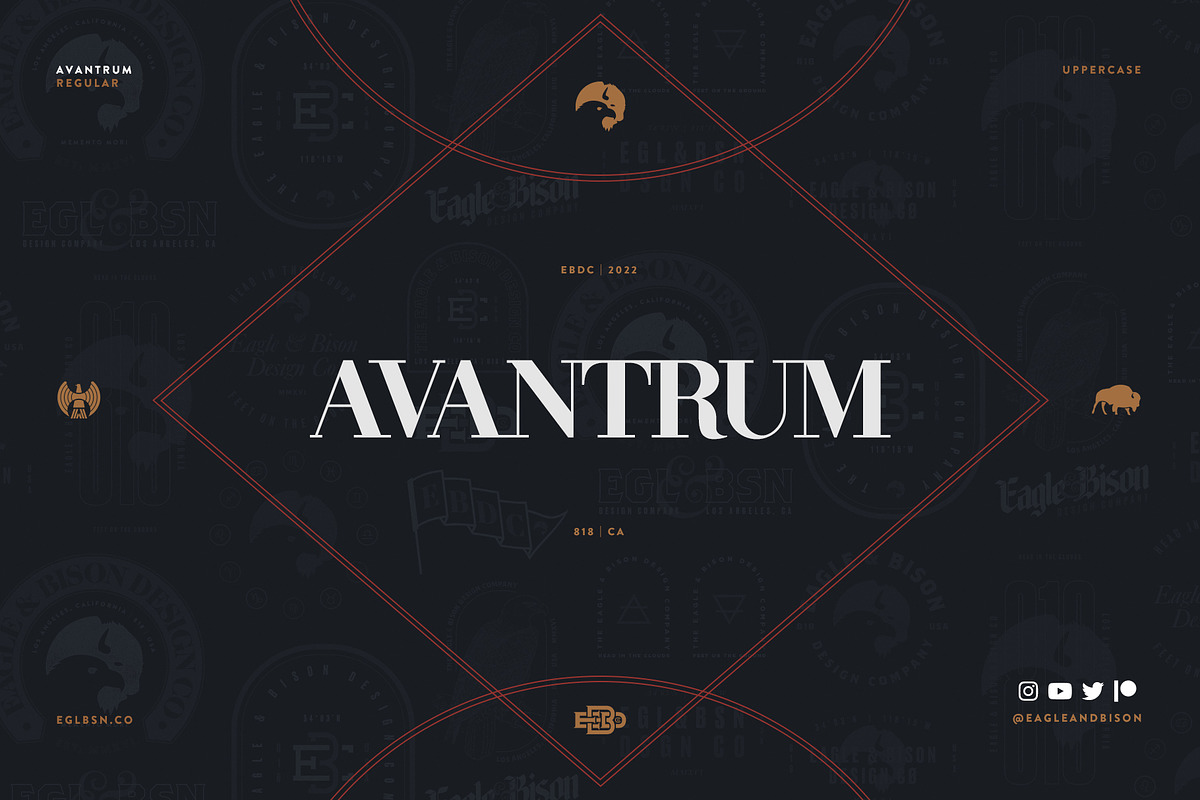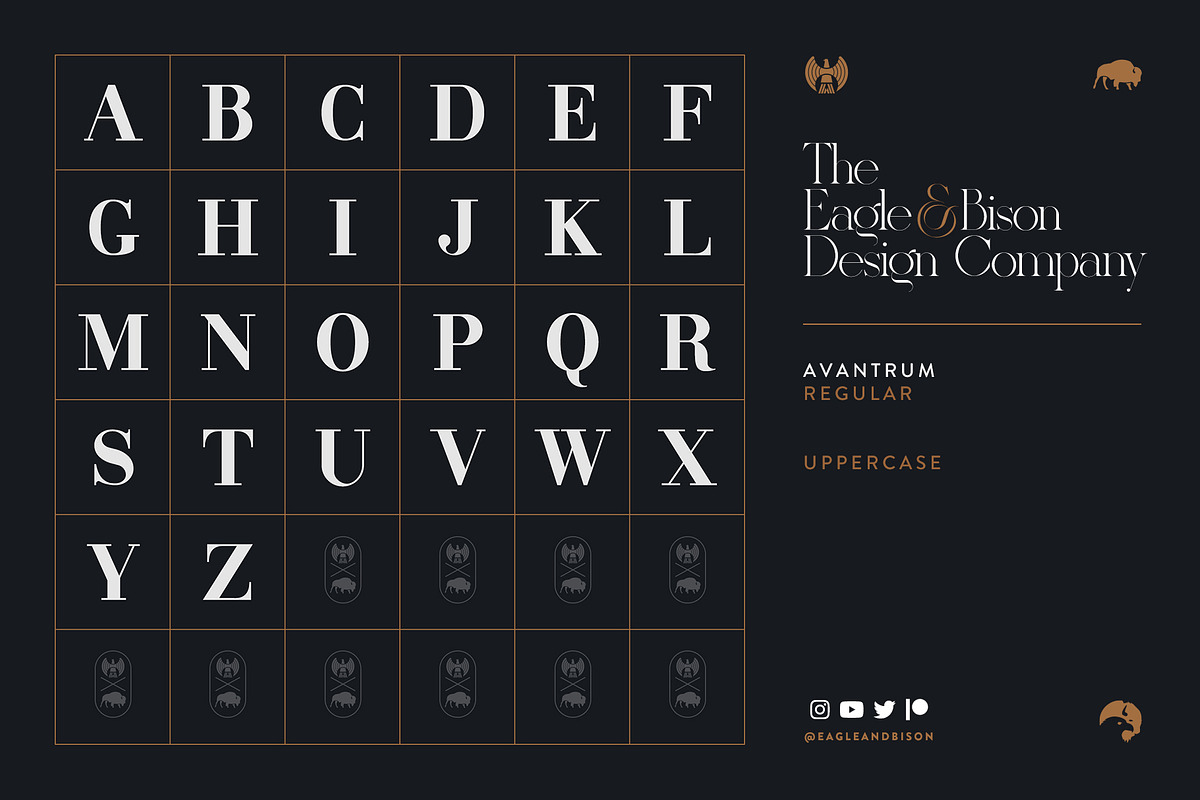
Avantrum
Avantrum was created in the style of a traditional Roman serif font. My goal when creating this set of characters was to improve and refine how I control curves and anchor points. Especially when creating complex serif shapes, because it requires careful planning and measurements in order to made every character look uniform.
Learning to create serif characters means learning a whole different set of rules compared to creating a sans-serif font that usually consist of a constant line width across the board.
A Roman style serif font has varying widths for each character that simulates how Roman letter-shapes used to be hand written with a calligraphic pen.